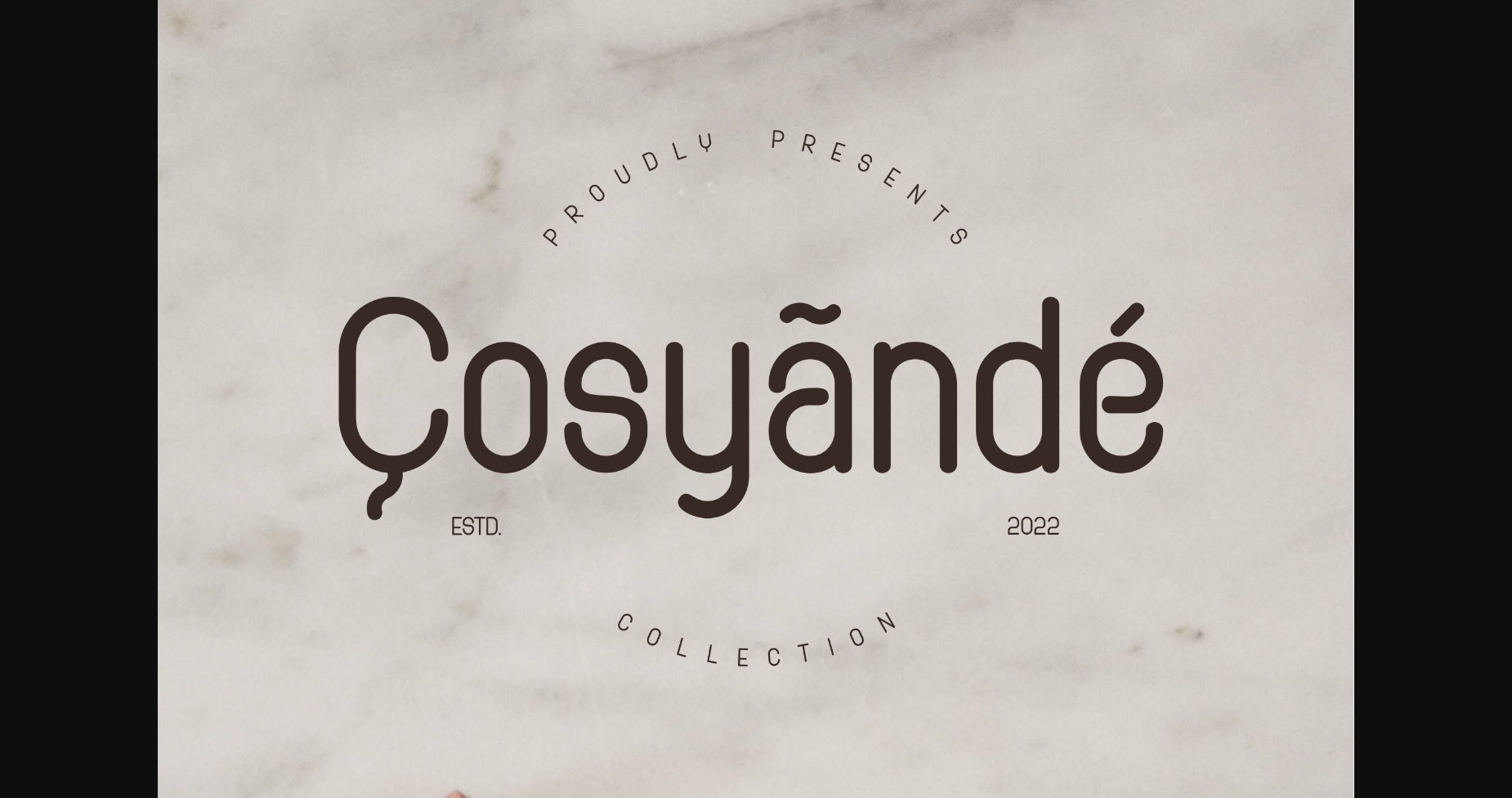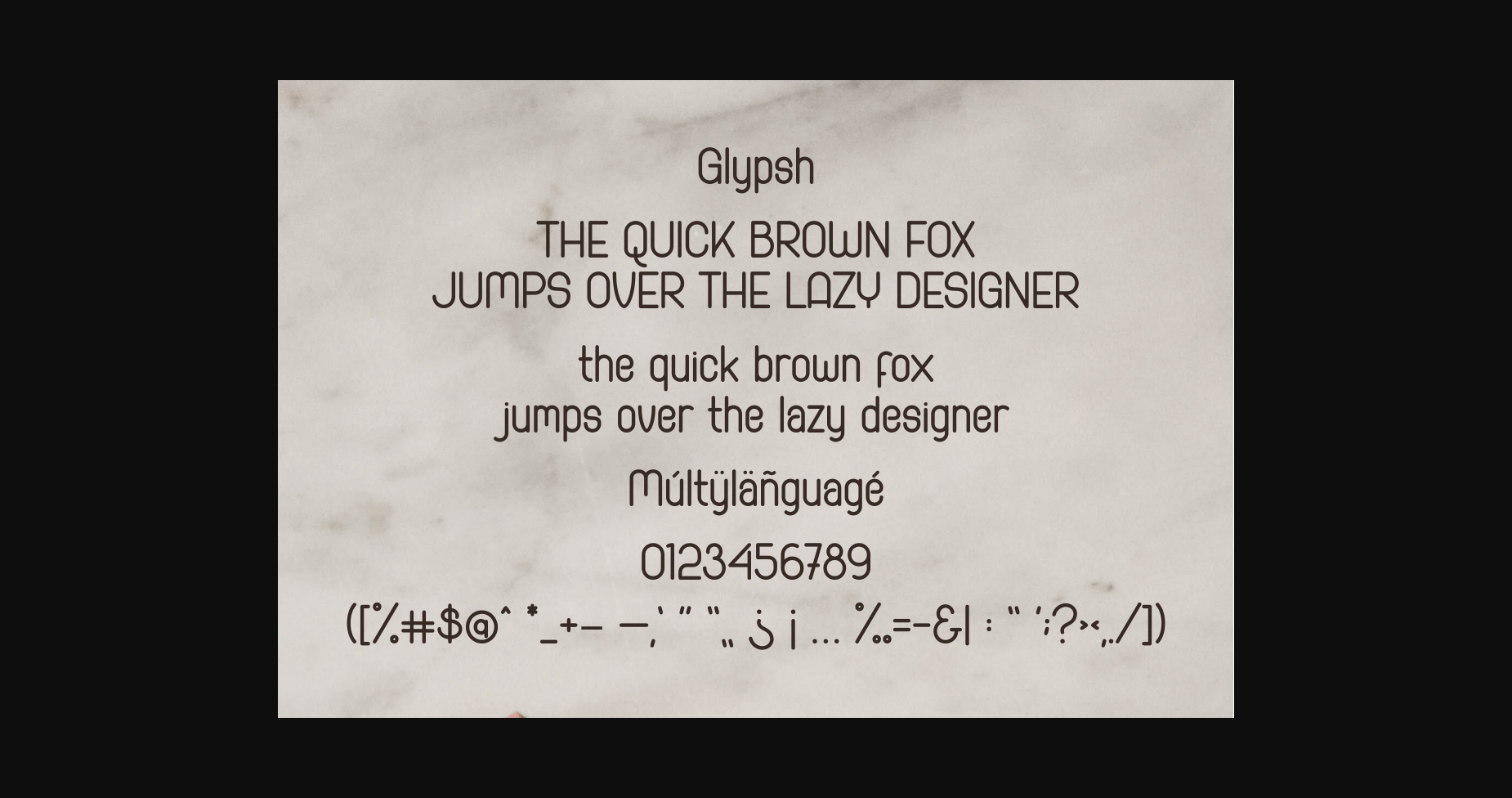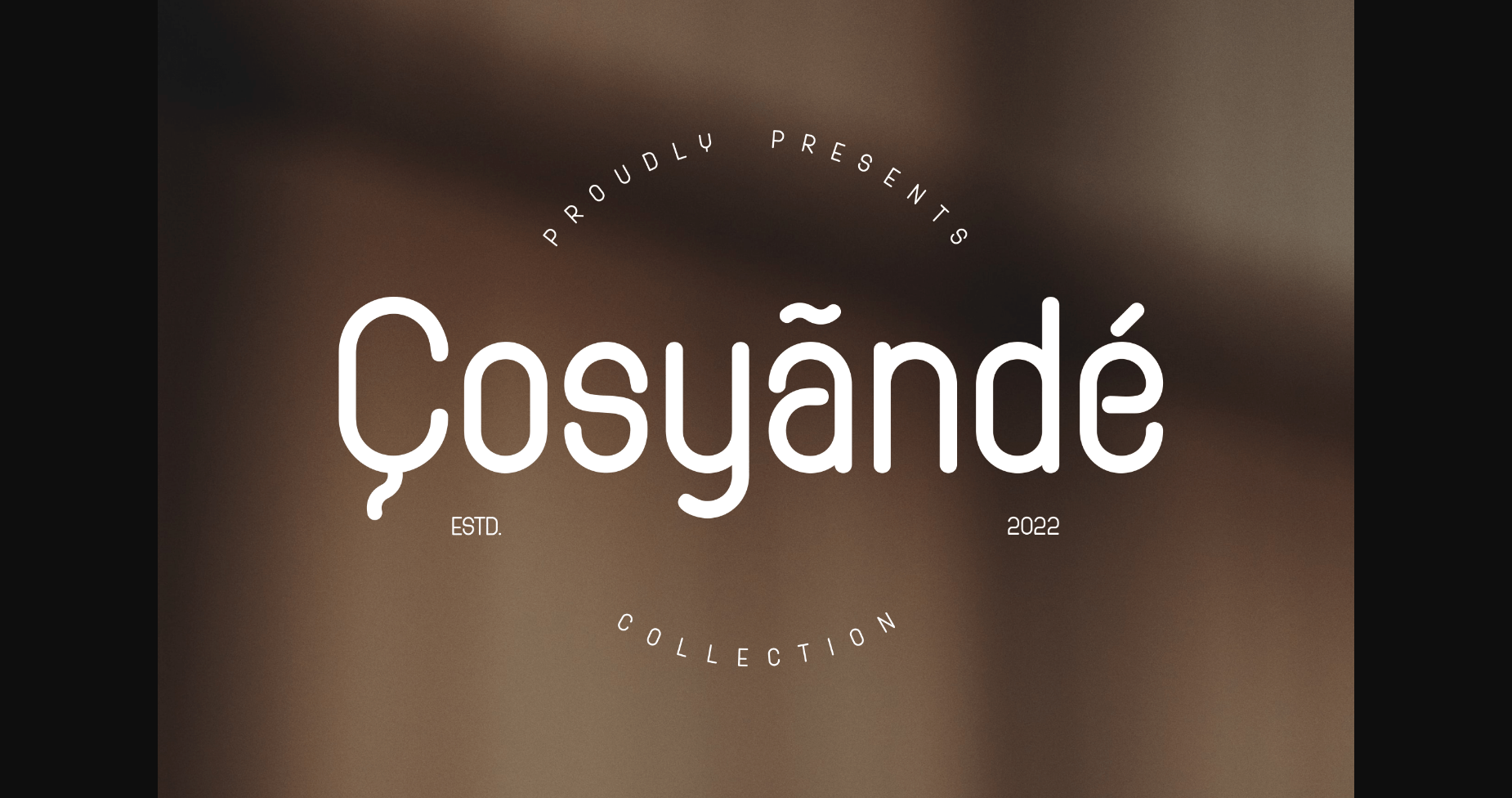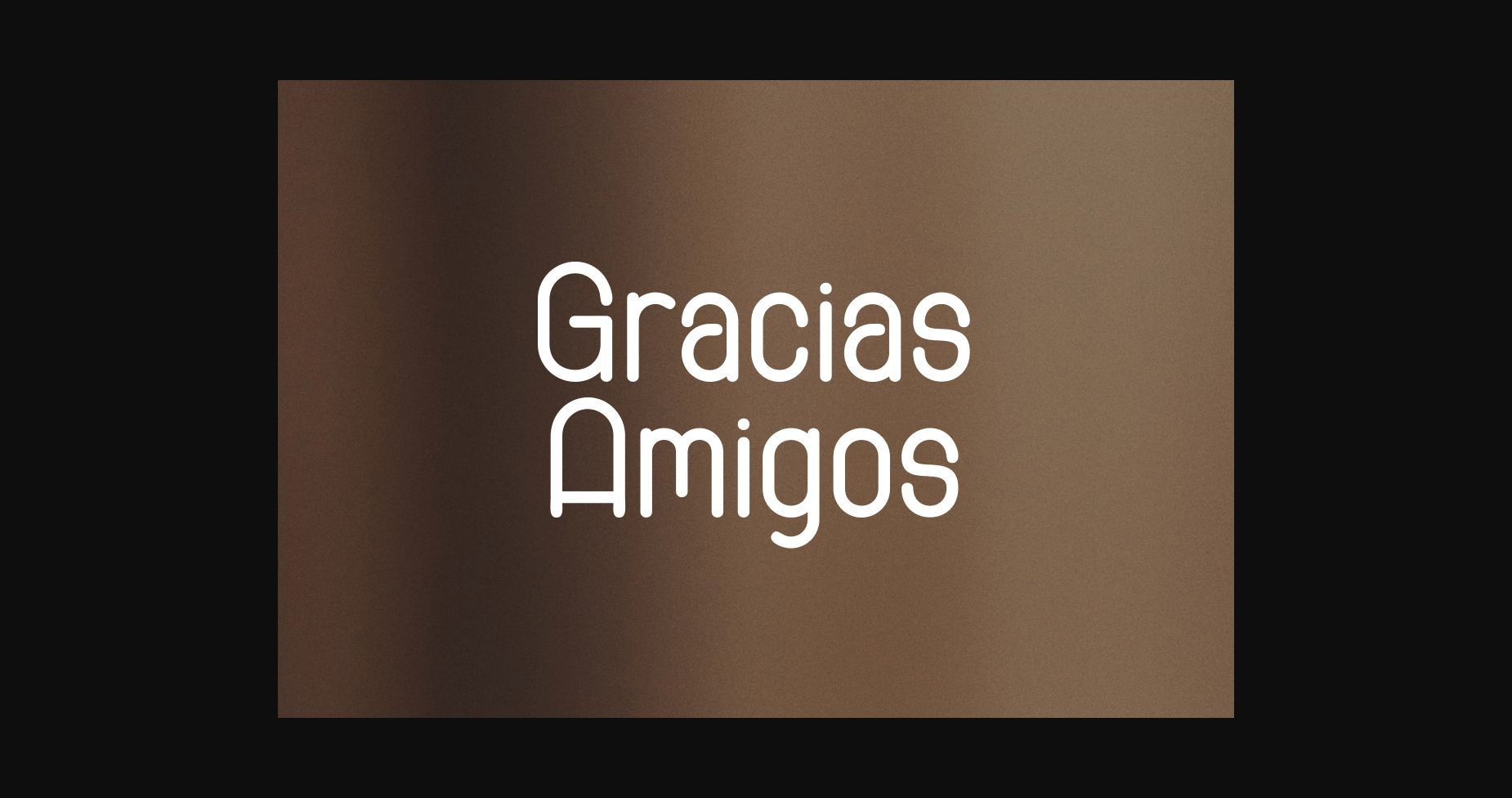
Cosyande is a classy and soft, super rounded monoline sans serif font. With its neat and elegant look, this font is perfect for a wide pool of design ideas.